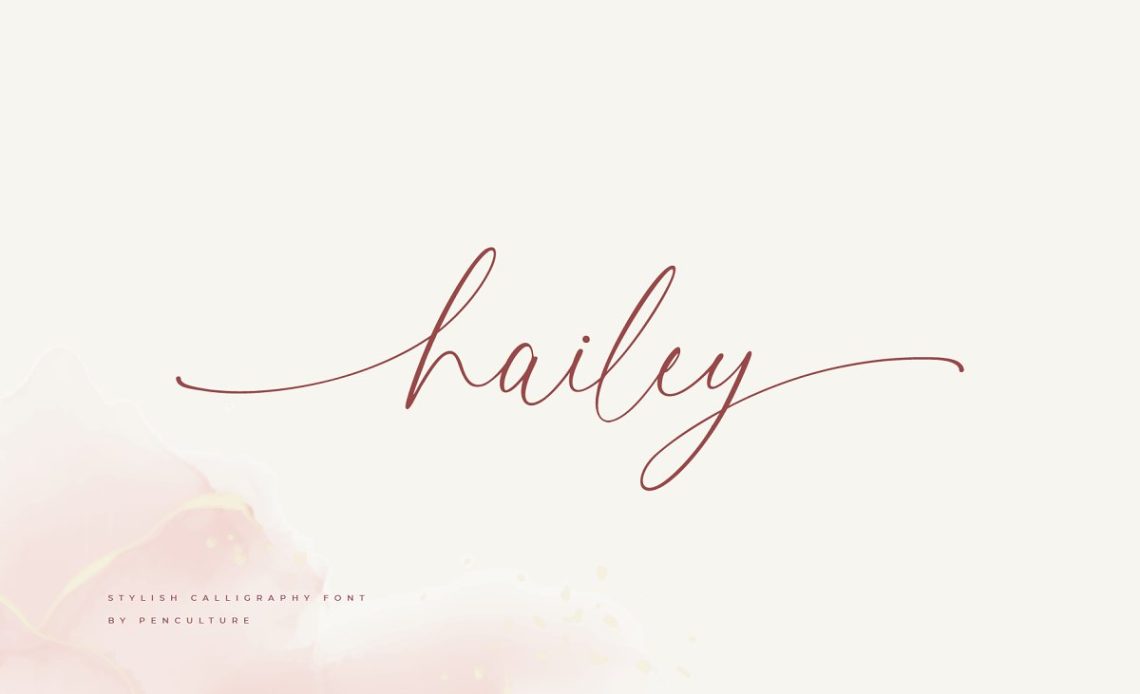
Are you looking for the perfect font to make your designs stand out? Look no further than Hailey - the stylish calligraphy font created by Revo Farisky. Whether you're designing a wedding invitation, branding materials, or a logo, Hailey is the perfect addition to your creative toolkit.
With fully uppercase and lowercase letters, numbers, and punctuation, Hailey is incredibly versatile and can be used in a wide range of design projects. But what really sets it apart are the beautiful beginning and ending swashes that add a touch of elegance and sophistication to any design.
But Hailey isn't just a practical choice - it's also an emotional one. This font exudes beauty and grace, and its stunning curves and intricate details are sure to captivate anyone who sees it. With Hailey, you're not just using a font - you're making a statement.